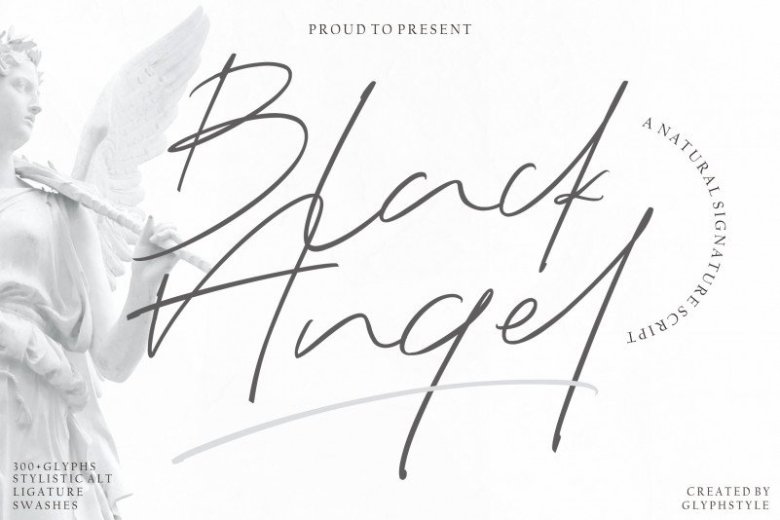
Black Angel – Signature Font
Black Angel – Signature Font is signature text with natural style & flow. Beautiful and elegant fonts with natural hand scratches. This signature font is perfect for weddings, watermarks, branding, such as interviews, business cards, product logos, etc.
Black Angel is perfect for branding projects, logos, wedding designs, social media posts, advertisements, product packaging, product designs, labels, photography, watermarks, invitations, stationery, and any project that requires a sense of handwritten signature.